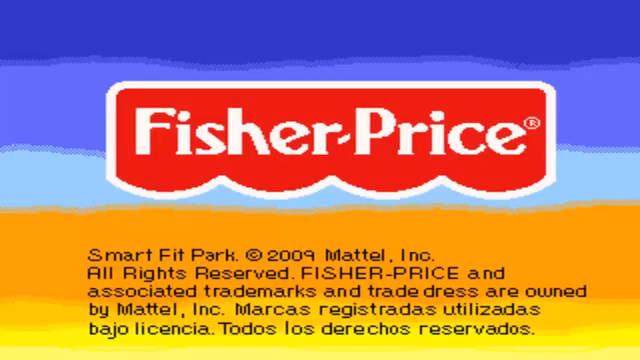
• Recreation of the copyright text on Fisher Price's "Smart Fit Park" from 2009. (Barely have any information on this so take this with a pinch of salt  and expect changes. ^_^).
Reference image :) There's also another version of this so I might upload that later...
Turns out there's another version of this font according to my research?! I'll probably recreate that one later O_O